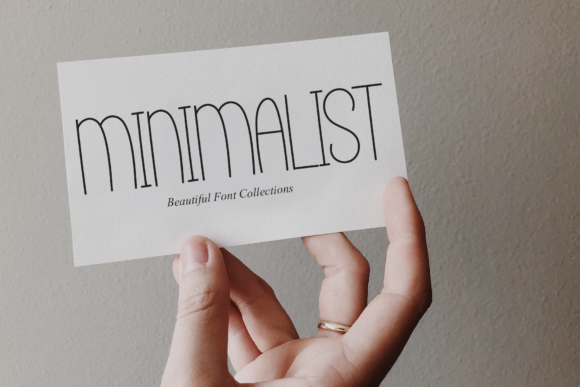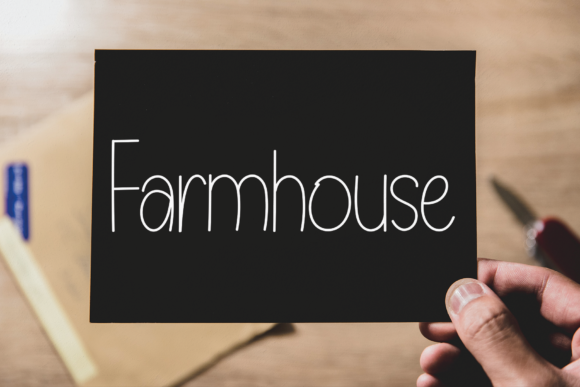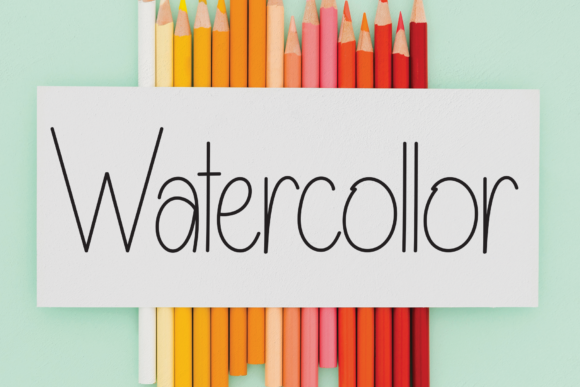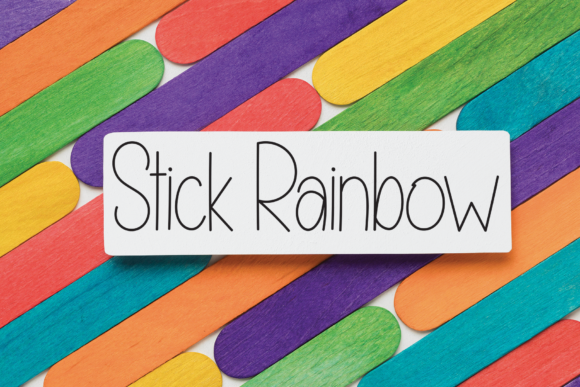
Introducing Handbook Font: The Ultimate Choice for Perfectionists
Are you a designer or crafter looking for a font that exudes elegance and sophistication? Look no further than Handbook Font, a minimalistic and neat handwritten font that’s perfect for those who demand impeccable typography. In this article, we’ll dive into the world of Handbook Font, exploring its features, benefits, and uses, as well as provide tips on how to make the most of this versatile font.
What is Handbook Font?
Handbook Font is a carefully crafted handwritten font that’s designed to provide a clean and minimalist aesthetic. Its subtle curves and precise lines make it an excellent choice for projects that require a high level of typographic precision. Whether you’re working on a logo, branding materials, or packaging, Handbook Font is the perfect choice for those who want to make a lasting impression.
Key Features of Handbook Font
- Minimalistic design: Handbook Font boasts a simple yet elegant design that’s perfect for modern designs.
- Neat handwritten style: The font’s handwritten style adds a touch of warmth and personality to any project.
- High legibility: Handbook Font is designed to be highly legible, making it perfect for body text and headlines.
- Versatile: The font comes in various weights and styles, making it suitable for a wide range of applications.
Benefits of Using Handbook Font
So, why choose Handbook Font for your next project? Here are just a few benefits of using this exceptional font:
- Elevate your brand: Handbook Font’s elegant design can help elevate your brand’s typography and overall aesthetic.
- Improve readability: The font’s high legibility ensures that your text is easy to read, even at small sizes.
- Stand out from the crowd: Handbook Font’s unique style sets it apart from more traditional fonts, making it perfect for designers who want to create something distinctive.
Uses of Handbook Font
Handbook Font is an incredibly versatile font that can be used in a variety of applications, including:
- Branding and logos: Create a lasting impression with Handbook Font’s elegant design.
- Packaging design: Add a touch of sophistication to your packaging with this beautiful font.
- Web design: Use Handbook Font to create stunning website headers, body text, and more.
- Print design: From business cards to brochures, Handbook Font is perfect for any print project.
Tips for Using Handbook Font
To get the most out of Handbook Font, here are a few tips to keep in mind:
- Pair with complementary fonts: Combine Handbook Font with other fonts to create a unique and visually appealing typography.
- Experiment with weights and styles: Try out different weights and styles to add depth and interest to your design.
- Pay attention to spacing: Make sure to adjust the spacing between letters and lines to create a clean and balanced design.
In conclusion, Handbook Font is an exceptional choice for designers and crafters who demand impeccable typography. Its minimalistic design, neat handwritten style, and high legibility make it perfect for a wide range of applications. Whether you’re working on a branding project, packaging design, or web design, Handbook Font is sure to elevate your typography and leave a lasting impression.